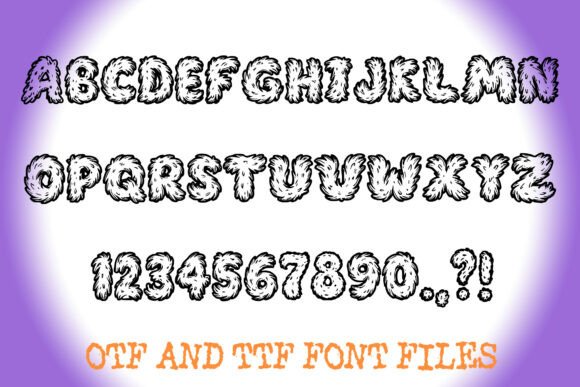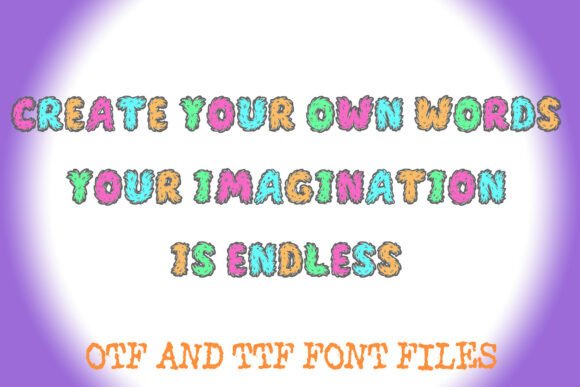
Introducing Fluffy Tail Font: Add a Touch of Whimsy to Your Designs
Are you looking for a font that can add a playful and eye-catching touch to your designs? Look no further than Fluffy Tail Font, a decorative display font that’s perfect for projects that demand personality and visual texture. In this article, we’ll take a closer look at the features and benefits of Fluffy Tail Font, and explore how you can use it to elevate your designs.
What is Fluffy Tail Font?
Fluffy Tail Font is a hand-drawn, cartoon-inspired typeface designed to mimic the texture and movement of fluffy fur or tails. With its exaggerated, soft-edged strokes and bold black outline, this font creates a sense of motion and whimsy that’s sure to capture attention. Each uppercase character and number is uniquely rendered with fur-like detailing, giving your designs a one-of-a-kind look.
Key Features of Fluffy Tail Font
- Playful and decorative: Fluffy Tail Font is perfect for projects that require a fun and playful touch, such as children’s books, pet branding, and costume party invites.
- Hand-drawn and unique: Each character and number is carefully hand-drawn, giving the font a unique and personalized feel.
- Fur-like detailing: The font features fur-like detailing on each uppercase character and number, adding texture and visual interest to your designs.
Use Cases for Fluffy Tail Font
So, what can you use Fluffy Tail Font for? The possibilities are endless, but here are a few ideas to get you started:
- Children’s books: Add a touch of whimsy to your children’s book with Fluffy Tail Font, perfect for titles, headings, and character illustrations.
- Pet branding: Create a fun and playful brand identity for pet-related businesses, such as pet stores, groomers, and animal shelters.
- Costume party invites: Make your costume party invites stand out with Fluffy Tail Font, perfect for creating fun and playful invitations.
- Halloween assets: Add a spooky-fun touch to your Halloween designs with Fluffy Tail Font, great for creating eye-catching titles and headings.
Tips for Using Fluffy Tail Font
Here are a few tips for getting the most out of Fluffy Tail Font:
- Use it sparingly: Fluffy Tail Font is a decorative font, so use it sparingly to add emphasis and visual interest to your designs.
- Pair it with a simple font: Pair Fluffy Tail Font with a simple font to create contrast and make your designs more readable.
- Experiment with colors: Fluffy Tail Font looks great in bold, bright colors, so don’t be afraid to experiment and find the perfect color scheme for your design.
Fluffy Tail Font is a playful and decorative font that’s perfect for designers and crafters looking to add a touch of whimsy to their designs. With its unique, hand-drawn characters and fur-like detailing, this font is sure to capture attention and make your designs stand out. Whether you’re working on a children’s book, pet branding project, or costume party invite, Fluffy Tail Font is a great choice for adding personality and visual texture to your designs.